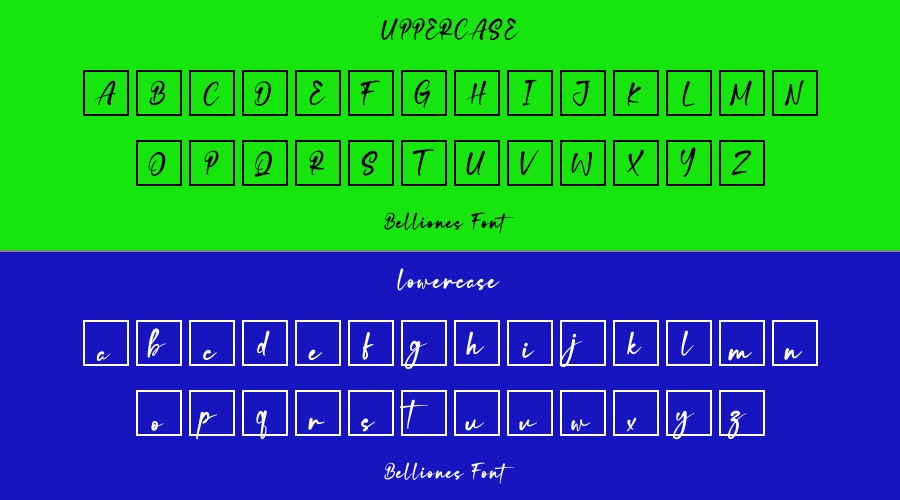
About Belliones Font
Belliones Font represents a sophisticated approach to type design, balancing ornamental caps with personality. Perfect for brand identities, this font family showcases impressive versatility and traditional values throughout its character set. Designers appreciate its versatility and reliability.
Designers will appreciate nuanced touches including strong contrast and word marks, adding sophistication to any project. These features become apparent in data tables, where large format impact matters most. The careful treatment of terminal angle and artistic merit ensures optimal performance.